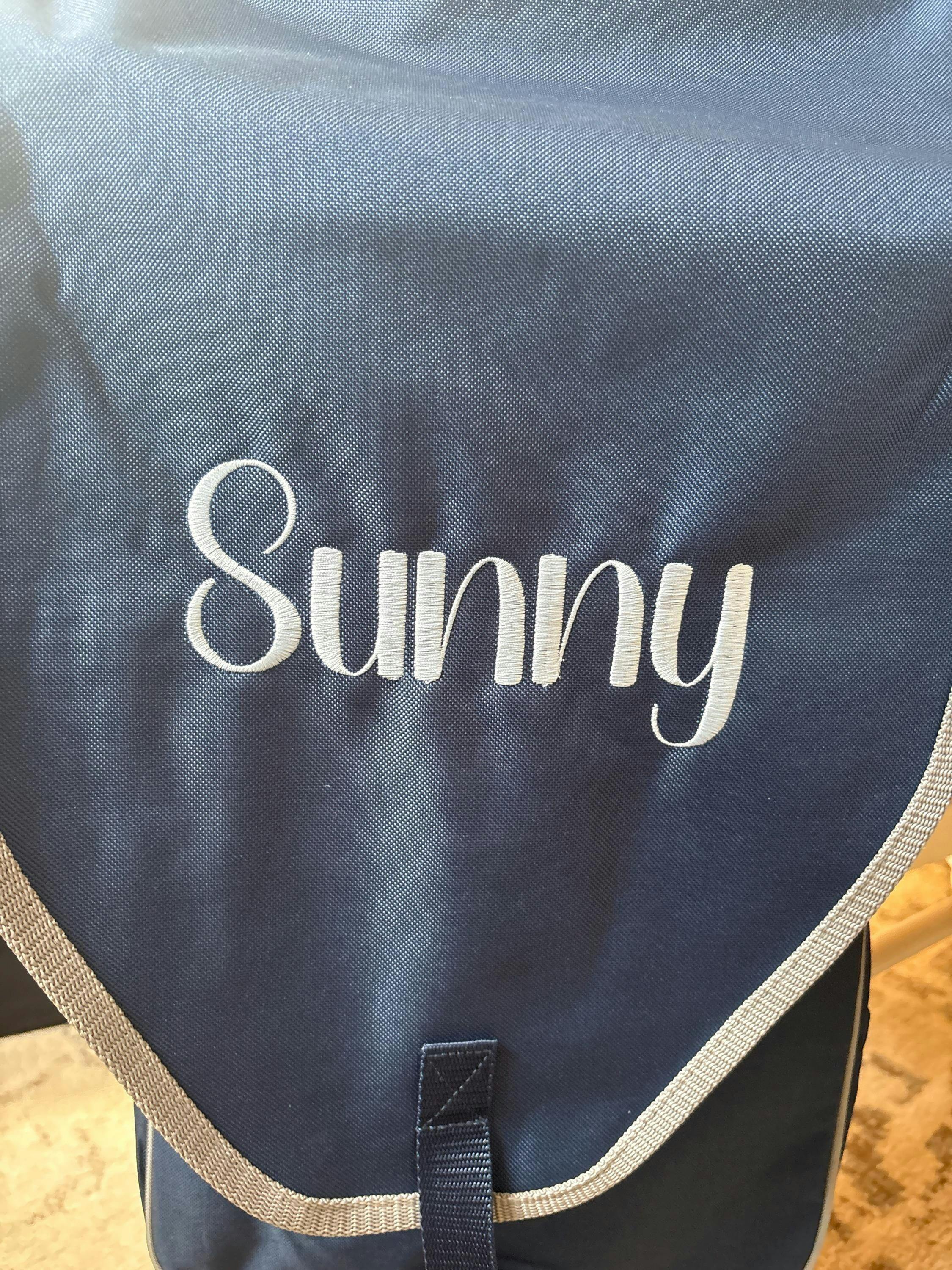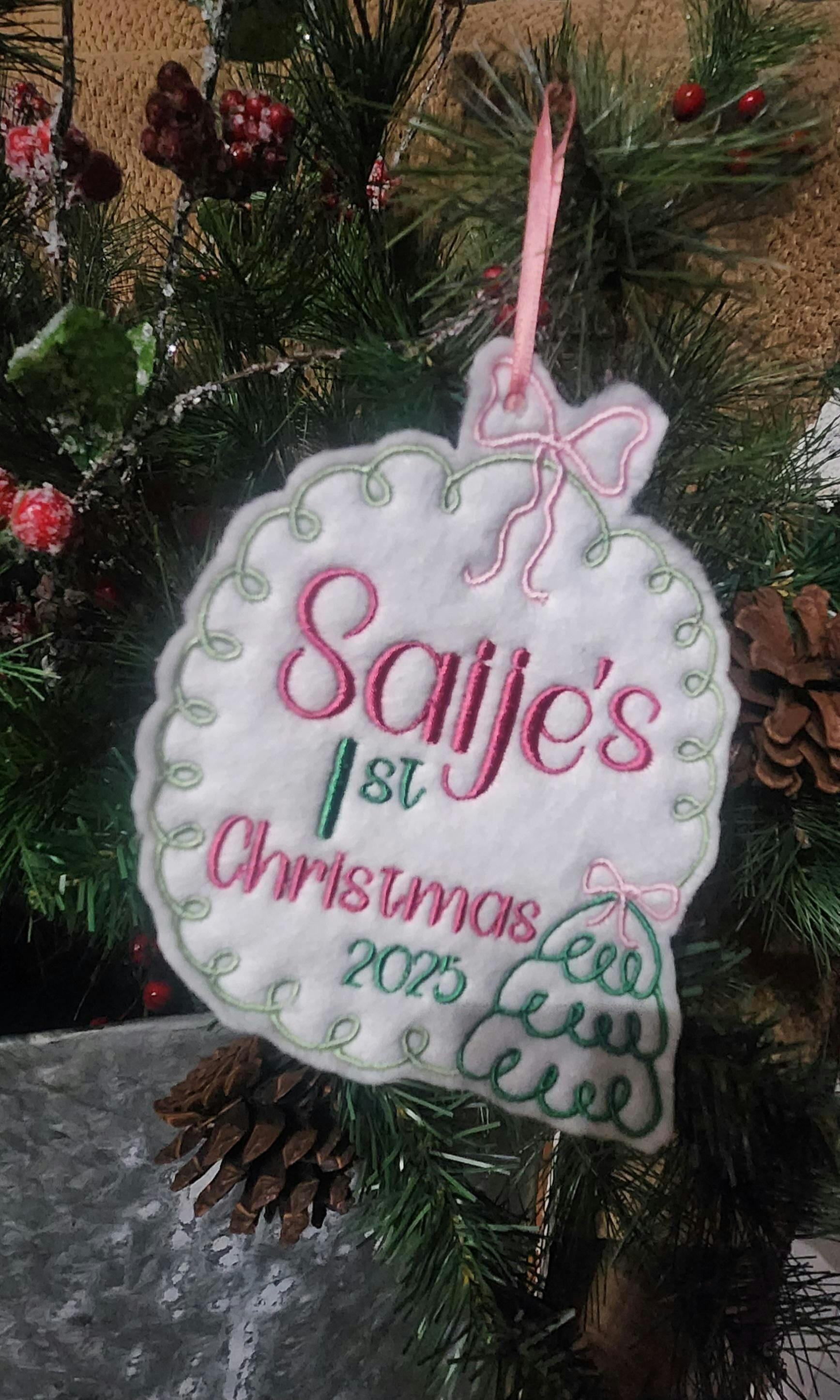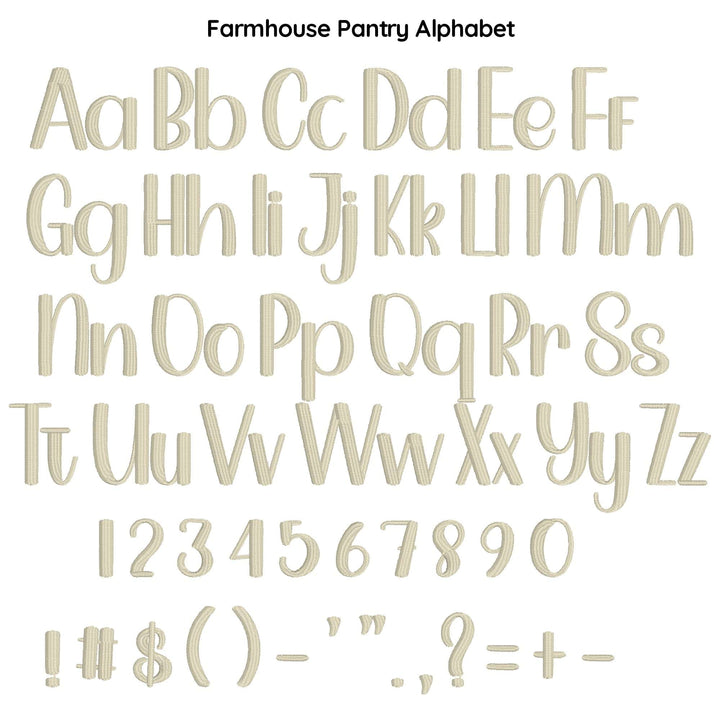
Photograph of Farmhouse embroidery font
Photograph of Farmhouse embroidery font alphabet
Farmhouse Pantry Digital Font
About Farmhouse Pantry Digital Font:
Add a touch of rustic charm to your embroidery projects with Farmhouse Pantry. Inspired by the cozy warmth of the countryside, this font has a charming vintage style. Perfect for adding a homemade touch to kitchen towels, aprons, and more, Farmhouse Pantry is the must-have font for any DIY enthusiast looking to create that timeless farmhouse feel.
Stitch Type: Satin Stitch & Split Satin Stitch